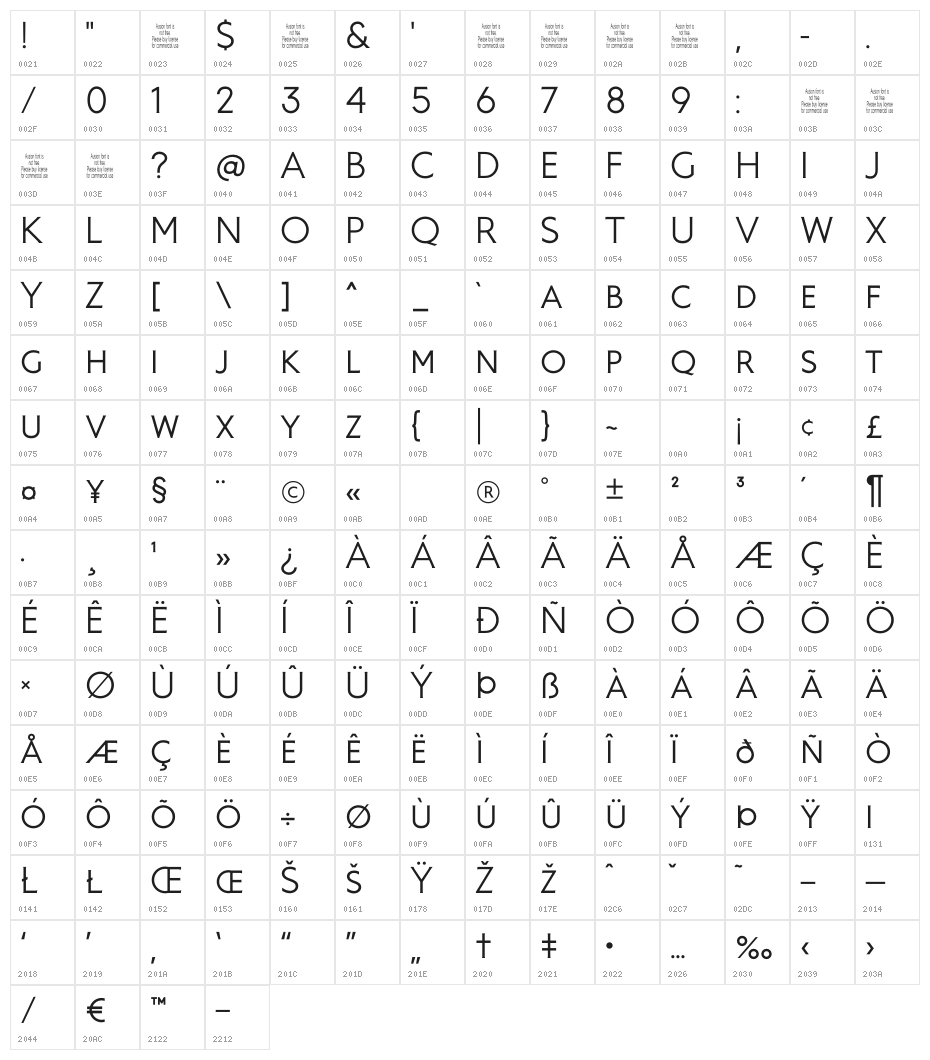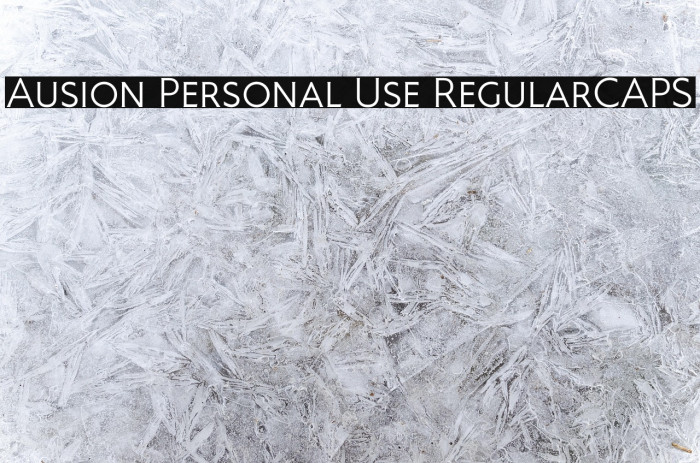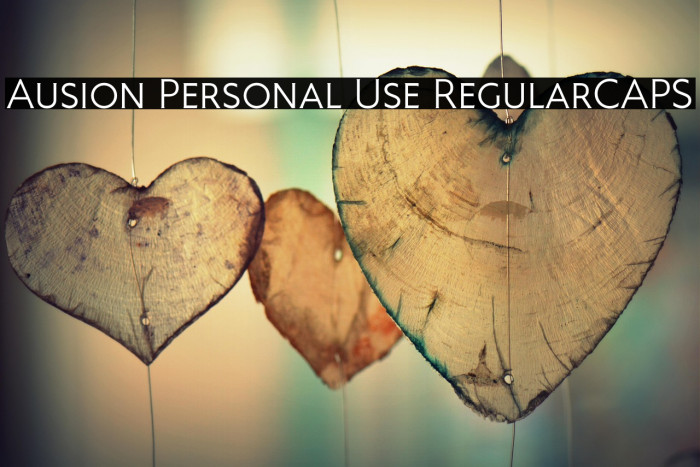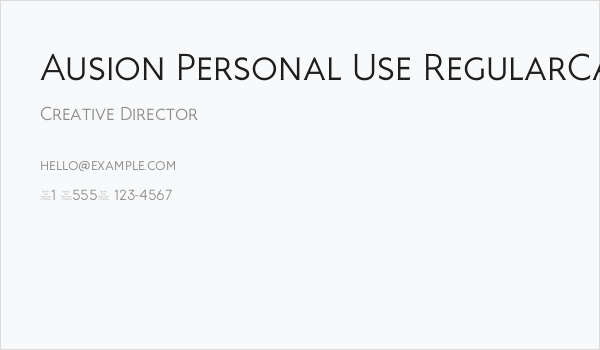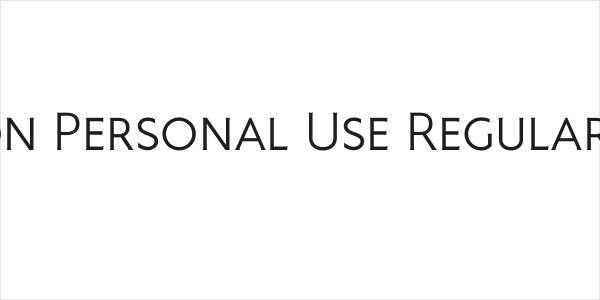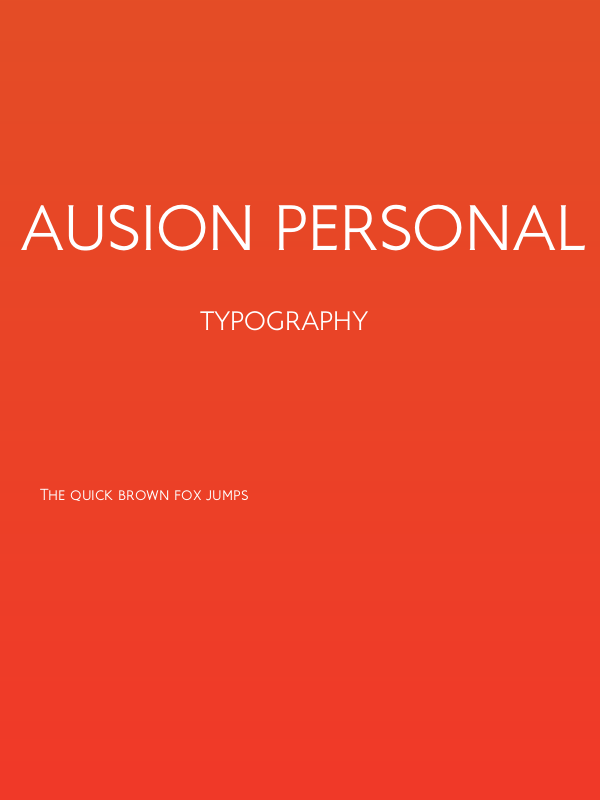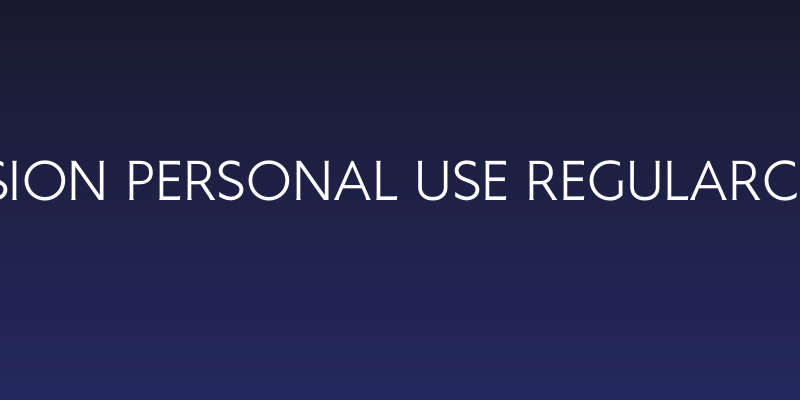
Ausion Personal Use RegularCAPS Font
Ausion Personal Use RegularCAPS Description
This font features a clean and modern design with a sans-serif style. The characters are well-proportioned with a consistent stroke width, giving it a sleek and professional appearance. The uppercase letters are bold and commanding, while the lowercase letters maintain a balanced and harmonious look. The numerals are clear and easily distinguishable, making them suitable for various applications. Special characters are included, providing versatility for different design needs. Overall, this font exudes a contemporary and sophisticated vibe, ideal for projects that require a polished and refined touch.